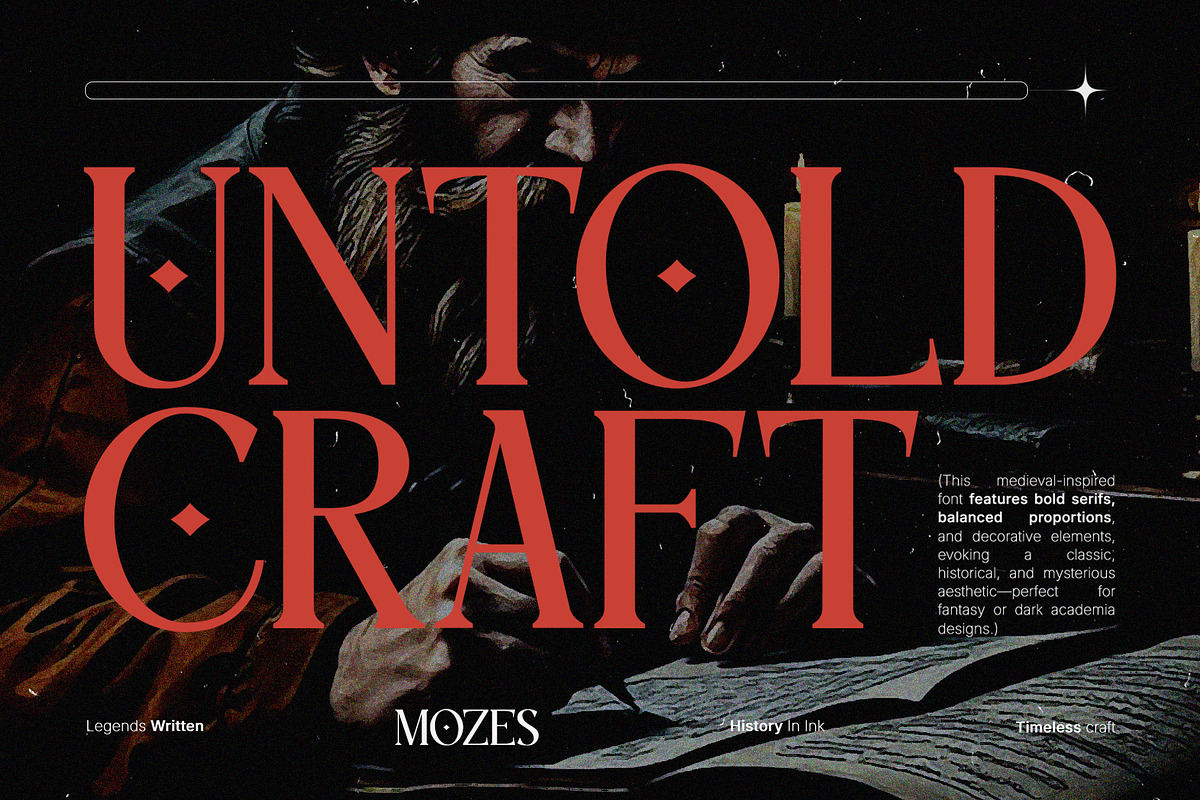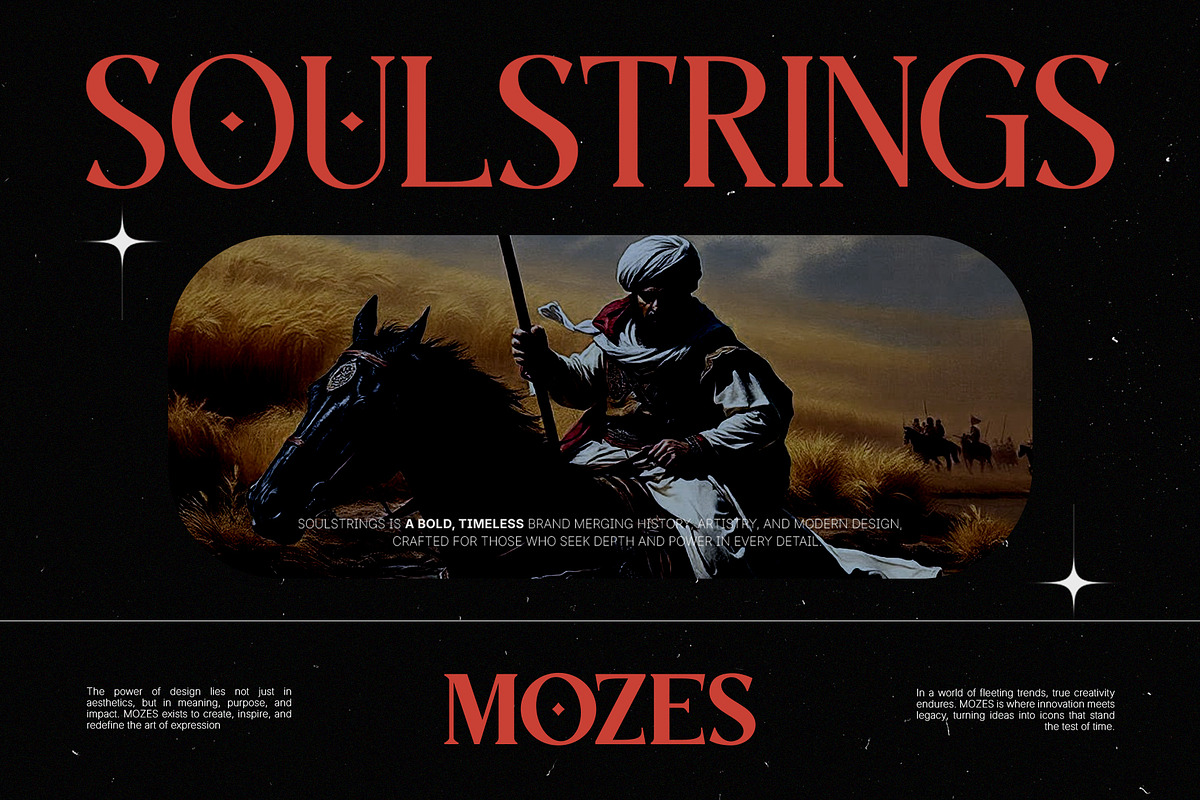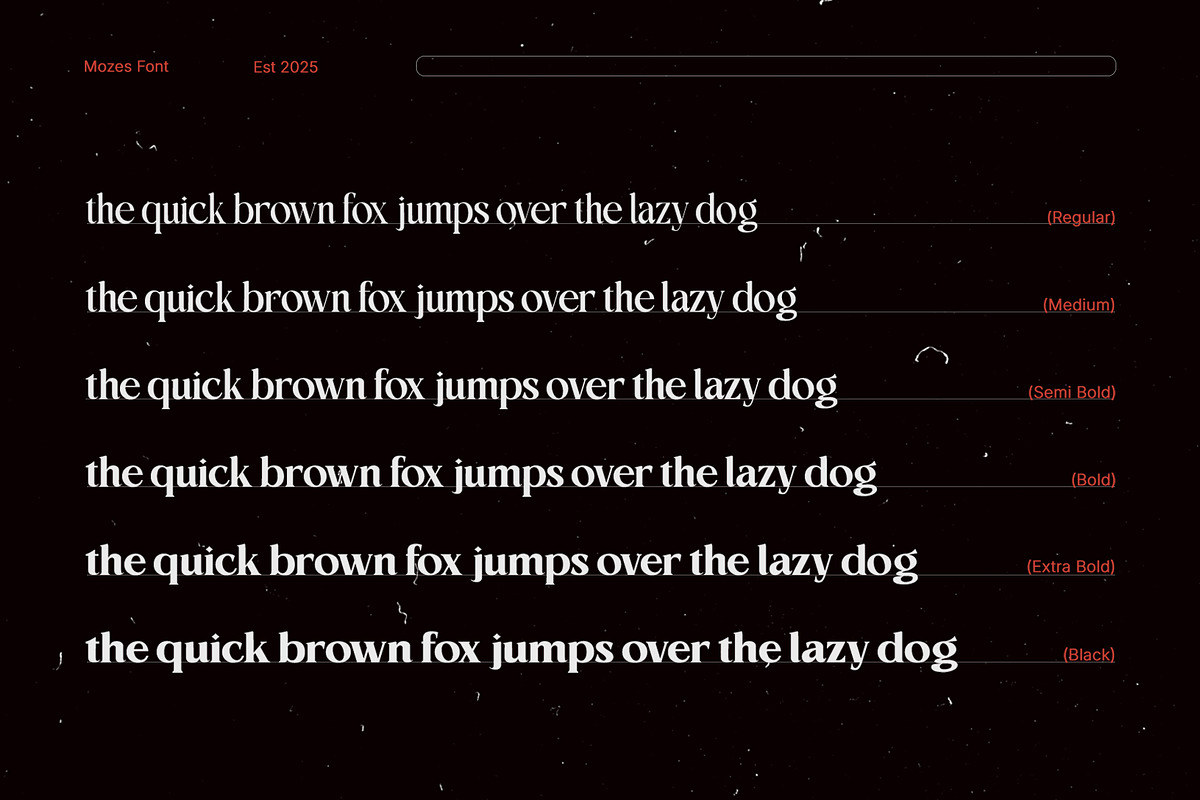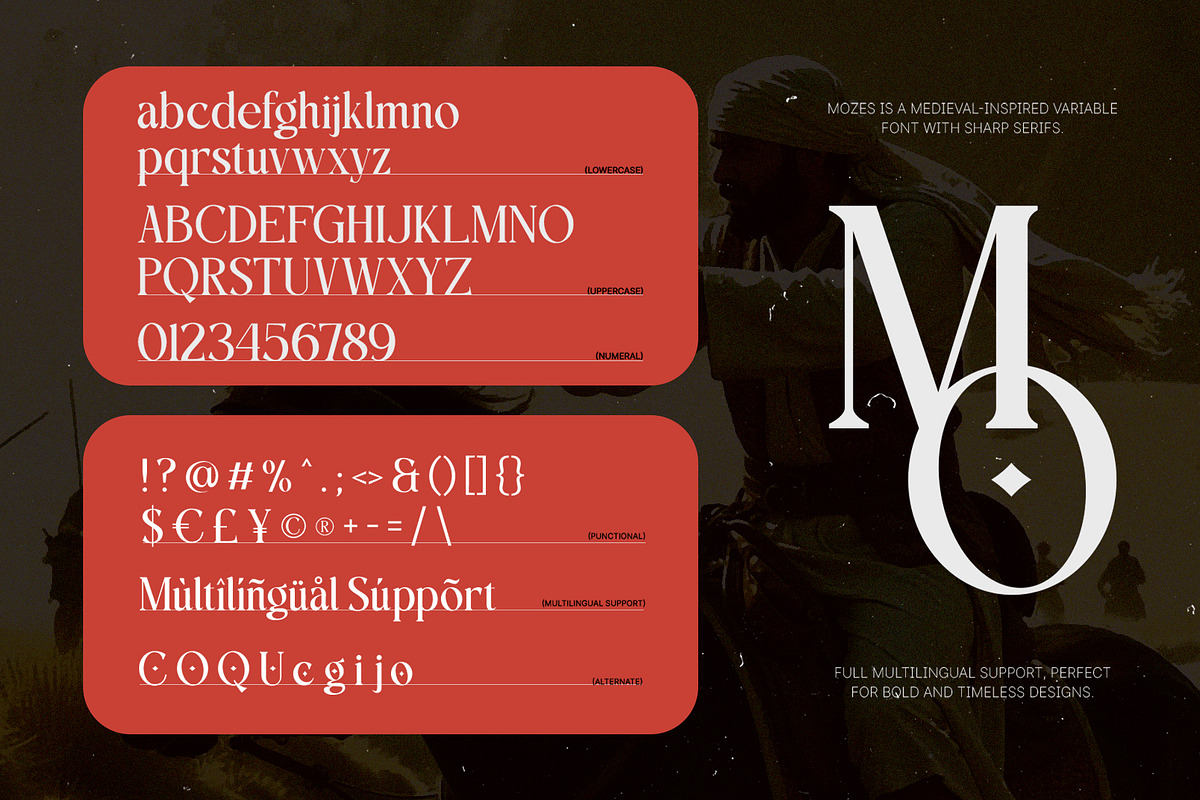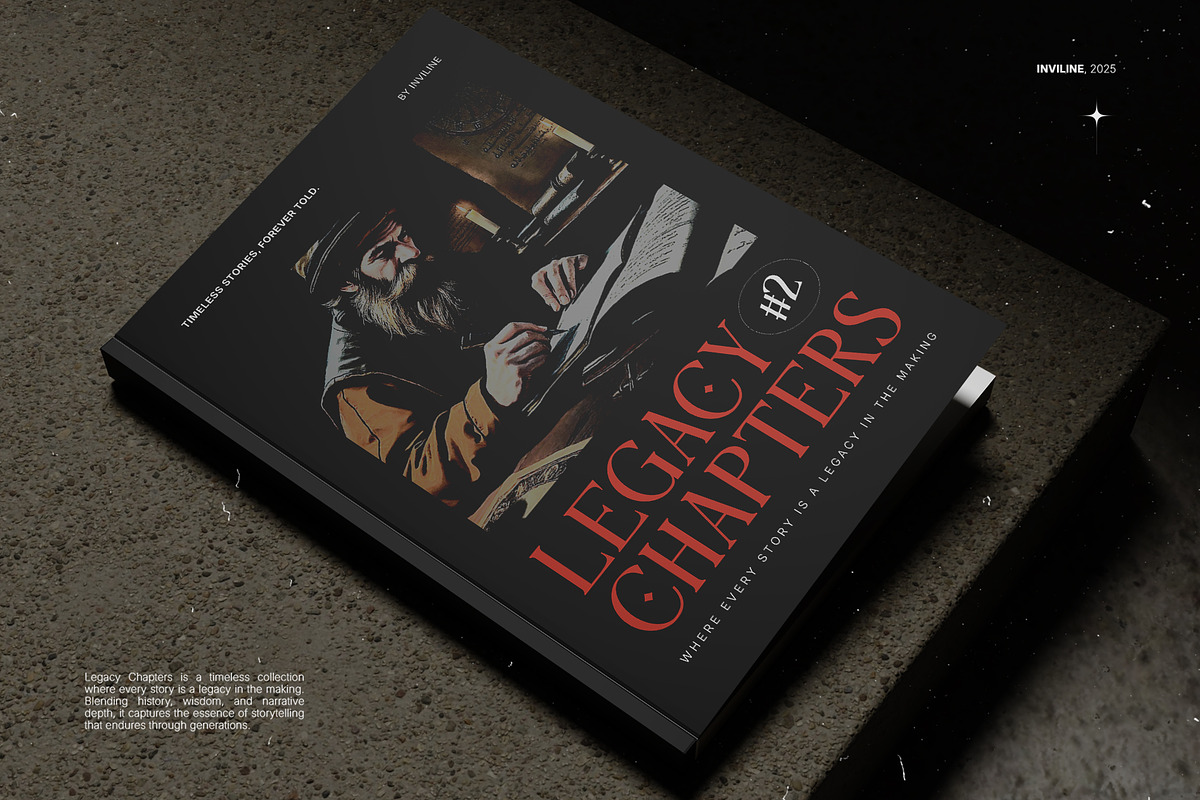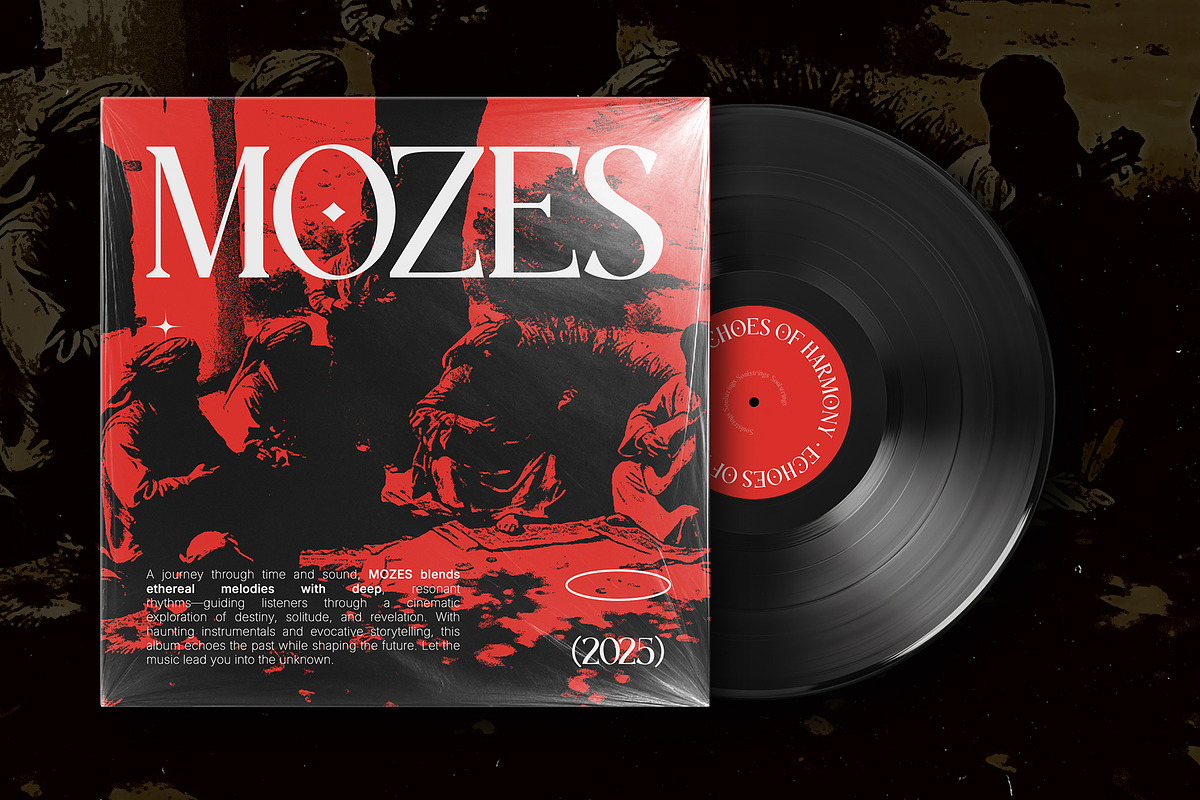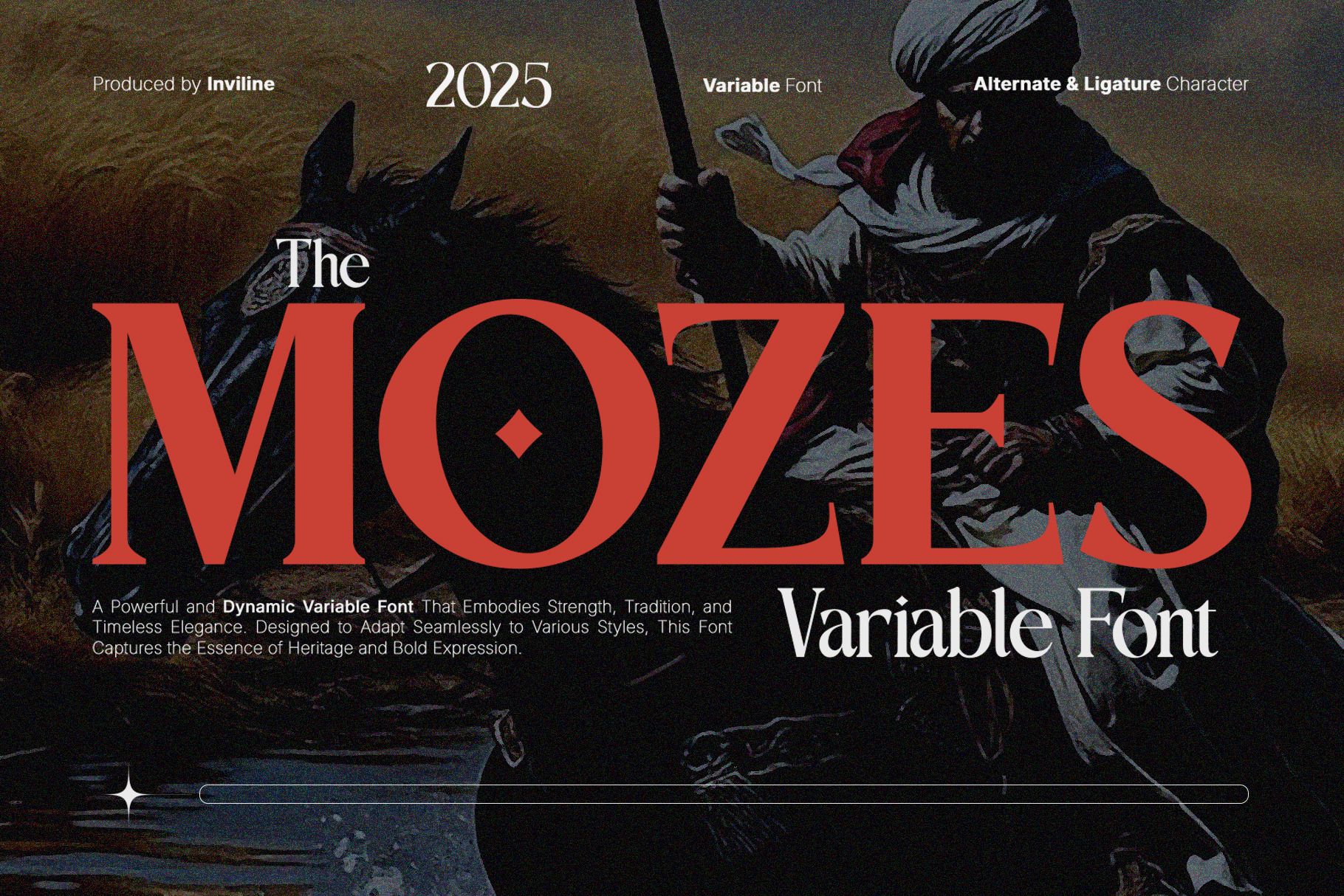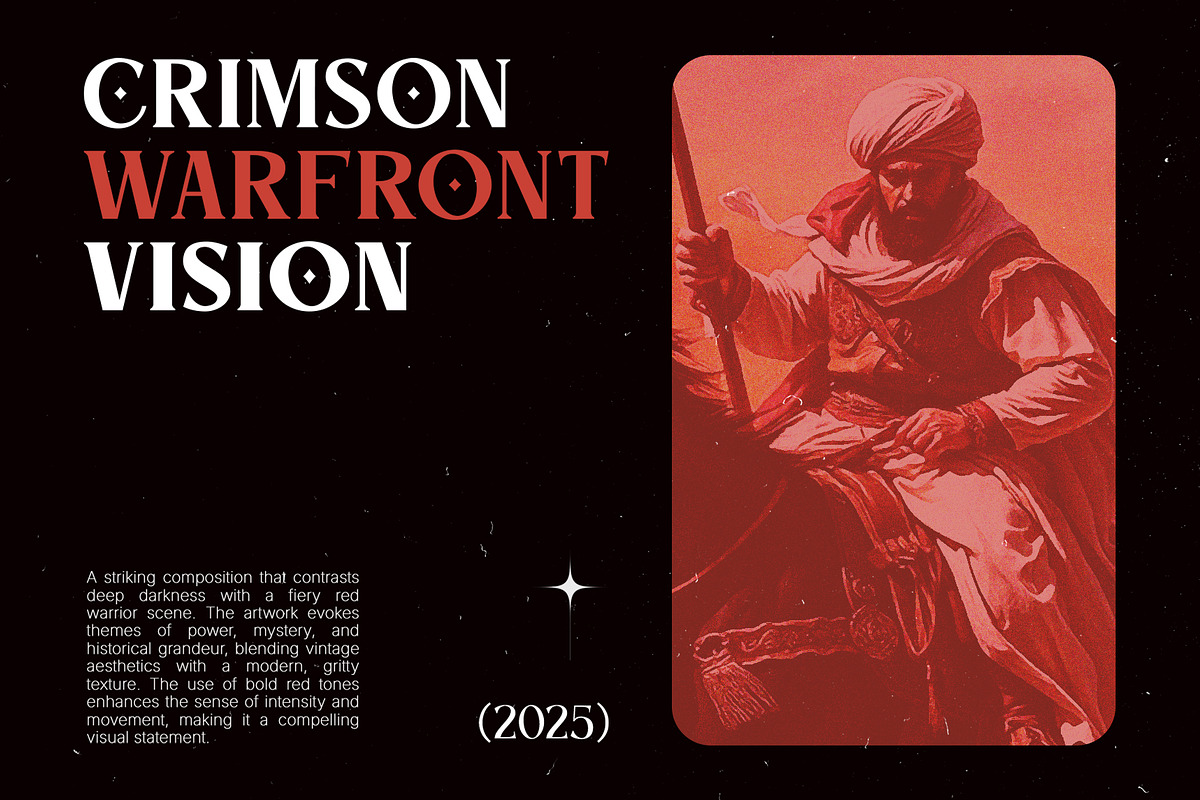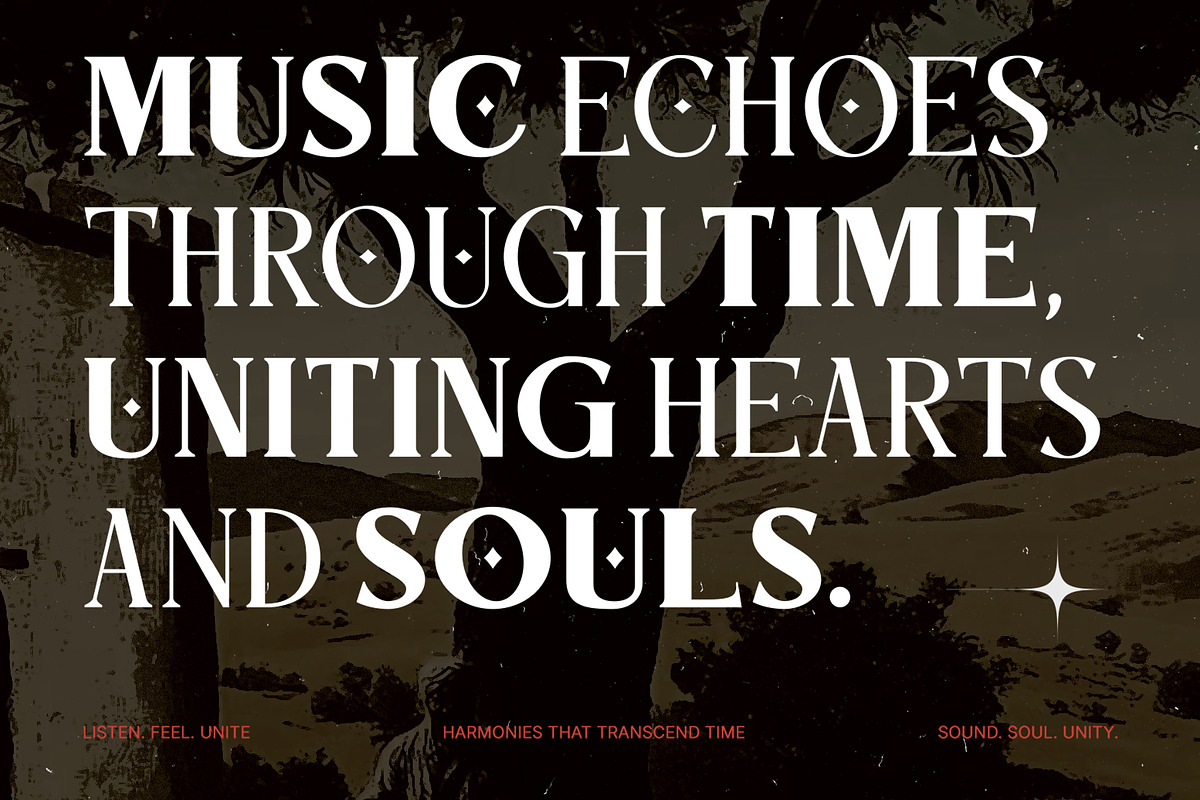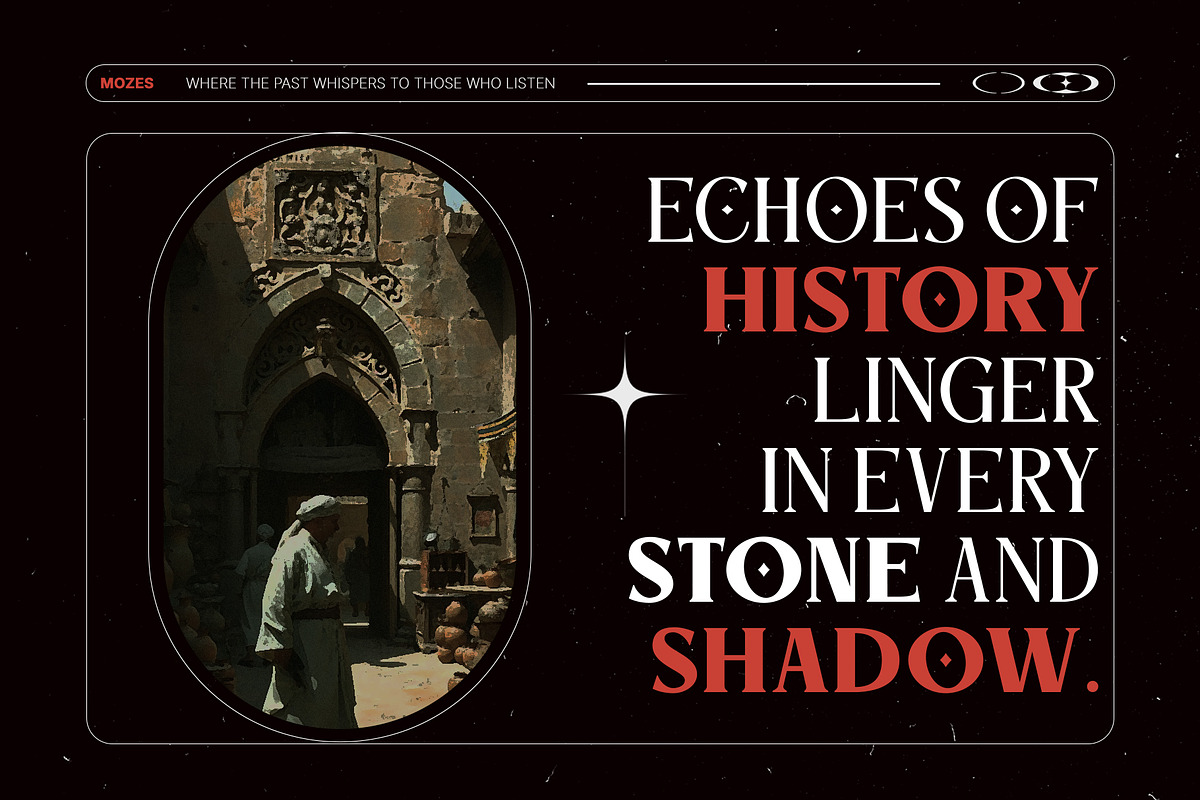
Mozes - Variable Font
Introducing Mozes, a dynamic and powerful Variable serif font. Designed for 2025, Mozes blends classic beauty with the strength of modern expression. Highly adaptable to various styles, Mozes captures the essence of heritage and bold expression. Complete with alternate characters and ligatures, Mozes offers exceptional flexibility for your design projects. More than just a font, Mozes is a statement of elegant and memorable style.
Experience the power of Mozes, a variable font that puts you in control. Adjust the weight, width, and other aspects to perfectly match your design aesthetic. This flexibility saves you time and eliminates the need for multiple font files, streamlining your workflow
- Uppercase & Lowercase Characters: Fully designed for a complete typographic experience
- Numerals & Punctuation: All the numbers and punctuation marks you need for any design task
- Multilingual Support: Includes characters for multiple languages, ensuring global usability
- High-Quality Design: Each font is crafted with attention to detail, ensuring a polished and professional look